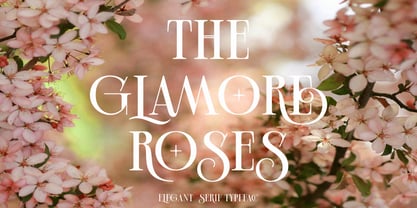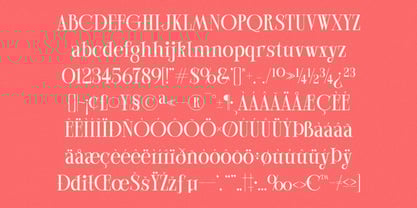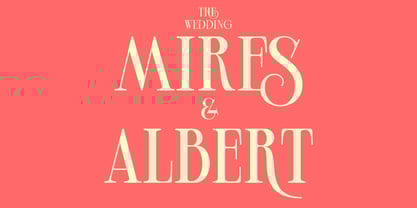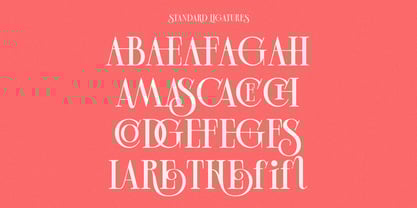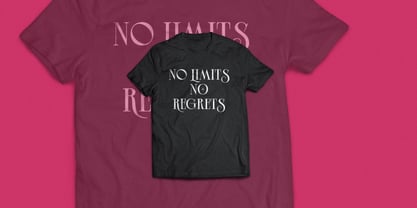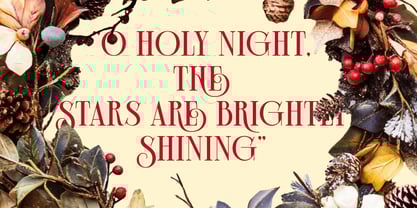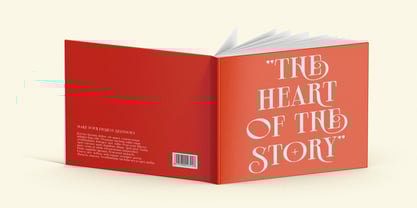
Glamore Roses
Glamore Roses is a serif font that embodies timeless sophistication, drawing inspiration from classic design principles. With its graceful curves and subtle details, this font seamlessly blends tradition and modernity, making it the perfect choice for high-end branding, editorial design, wedding invitations, and any project that requires a touch of elegance. Glamore Roses adds a sense of luxury and style to any application.